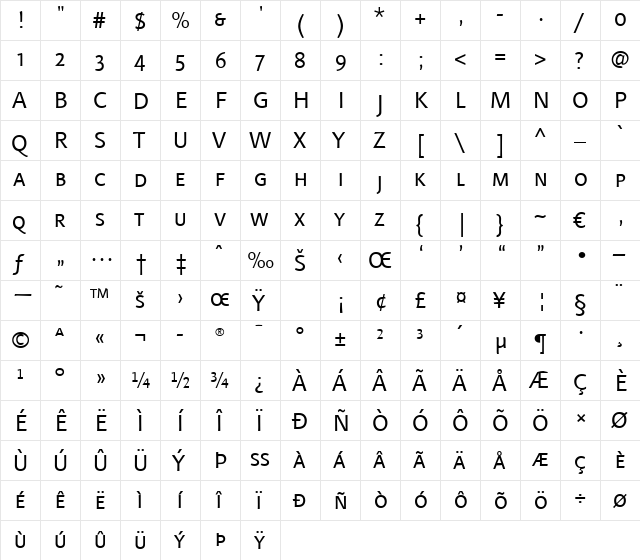
LTFinnegan SC Regular Font Preview
LTFinnegan SC Regular Regular
Design Context for LTFinnegan SC Regular Typeface
LTFinnegan SC Regular takes a measured approach to typography — its balanced proportions and neutral character make it a reliable workhorse for both digital and print work.